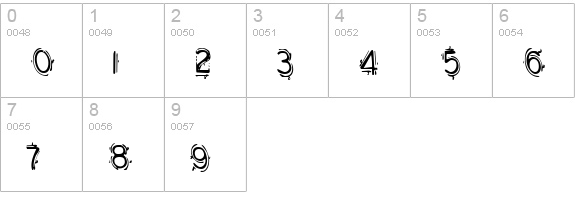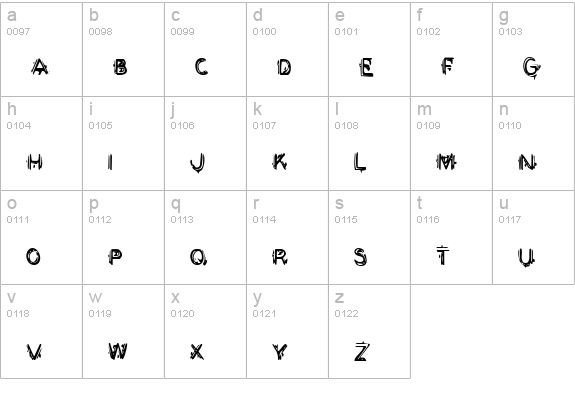
Berserker Condensed is a distinctive, condensed-width variant in the Berserker typeface family \xE2\x80\x94 well suited to design and typography projects.
Berserker Condensed font is a bold and powerful typeface designed to make a statement. Its condensed form gives it a modern and edgy look, perfect for headlines, posters, and branding projects. With its strong, sharp lines and distinctive style, Berserker Condensed commands attention and adds a touch of fierceness to any design. The best part? Berserker Condensed font is available for free download at FontsMarket.com. Whether you're a designer looking to add a bold element to your work or a creative looking to make a bold statement, Berserker Condensed font is the perfect choice. Download it now and unleash the power of this striking typeface in your projects.